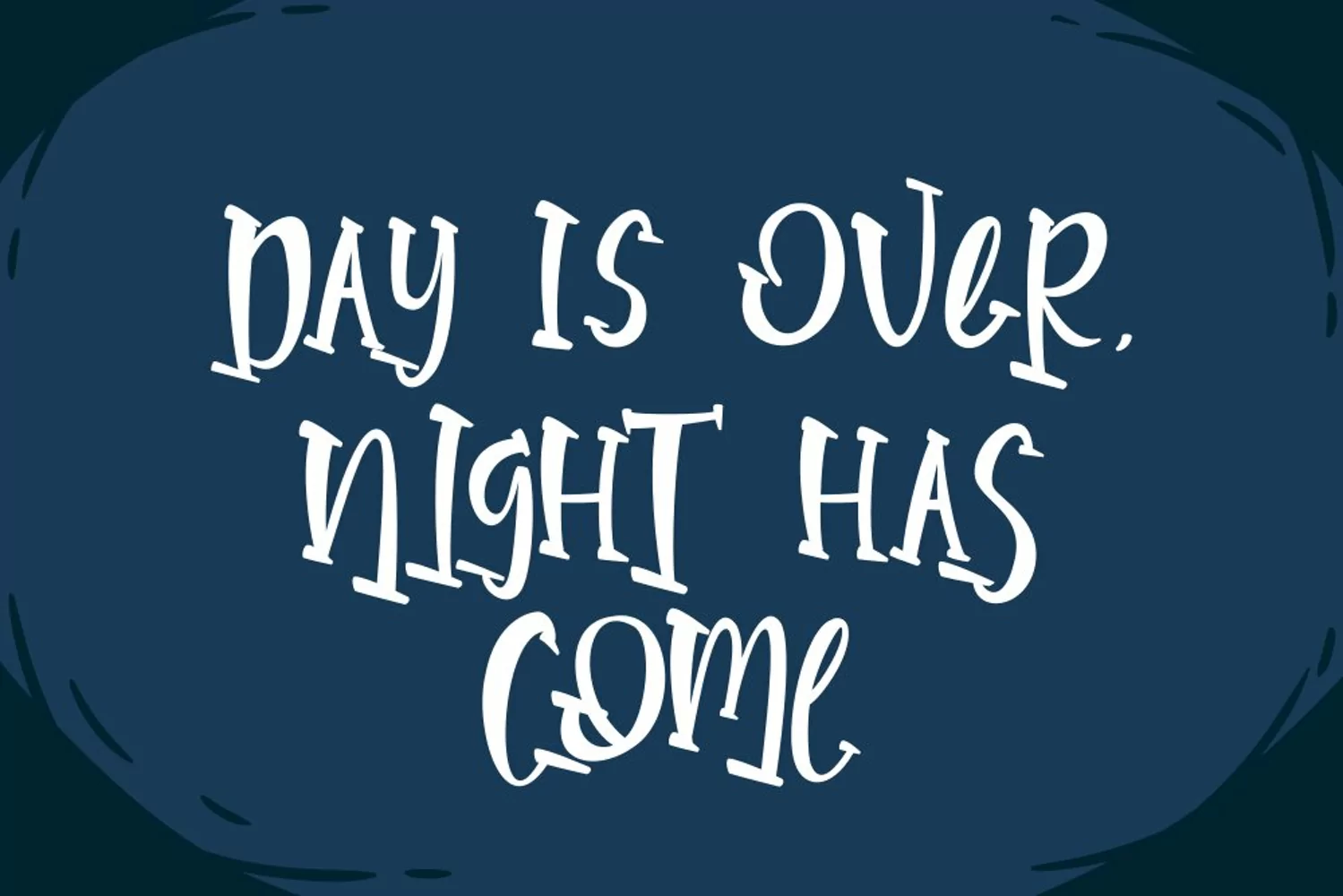
Parallel Night font a quirky handwritten font for your fun project. font suitable for logo, branding, poster and any design that you create.Files included: